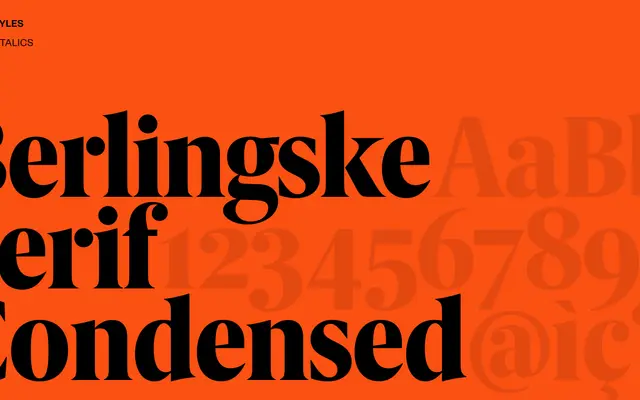
Berlingske Serif Condensed
Berlingske Serif Condensed specimen from Playtype
A condensed serif cut from Playtype's Berlingske family, suited to editorial headlines and tight display settings.
Part of the broader Berlingske type system developed by Playtype, this condensed serif variant is designed for space-efficient display work. Its narrow proportions make it well-suited to newspaper-style headlines and editorial layouts where column width is limited. The Berlingske name ties it to a long-standing Scandinavian publishing tradition.
The name and condensed classification indicate a condensed variant of the Berlingske Serif family, likely a transitional or contemporary serif given the Berlingske editorial heritage.